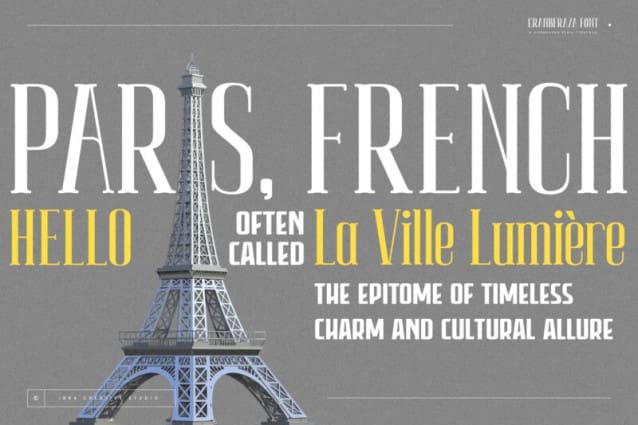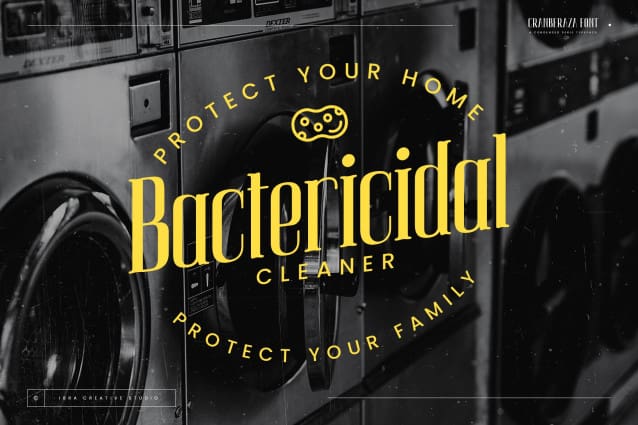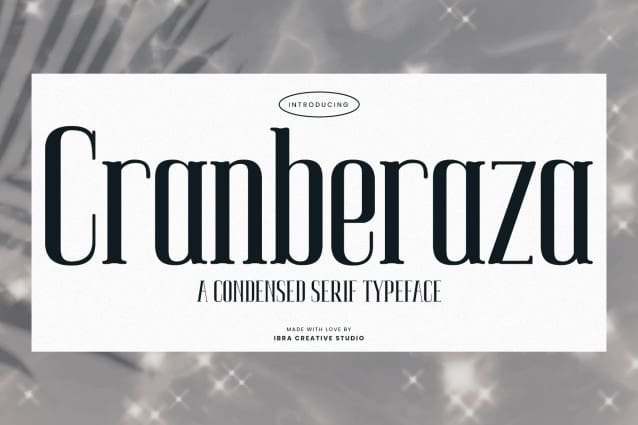
Cranberaza Font
Cranberaza Font is a refined and condensed serif typeface that exudes a timeless elegance and modern sophistication. Characterized by its slender and streamlined letterforms, this typeface strikes a harmonious balance between classic serif elements and contemporary design aesthetics. The condensed proportions contribute to a sense of verticality and efficiency, making Cranberaza an ideal choice for applications where space is at a premium. The letter strokes are meticulously crafted with subtle serifs that convey a sense of tradition while maintaining a sleek and versatile appearance. With its graceful curves and legible details, Cranberaza stands as a versatile and stylish choice for projects seeking a sophisticated typographic touch.
Cranberaza Font is perfect for branding projects, logo, wedding designs, social media posts, advertisements, product packaging, product designs, label, photography, watermark, invitation, stationery, game, fashion and any projects.